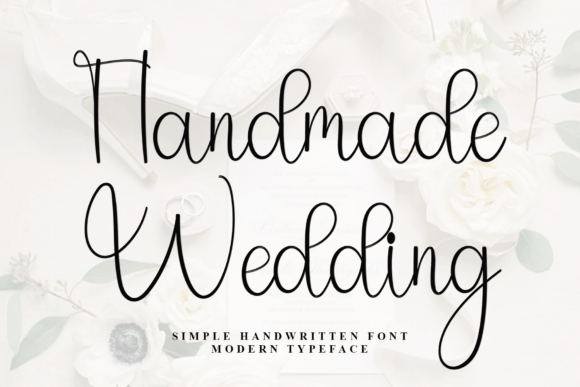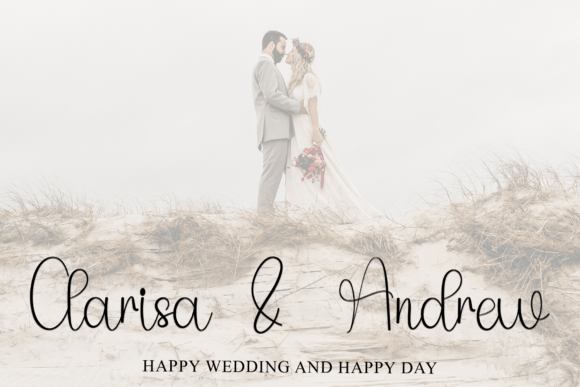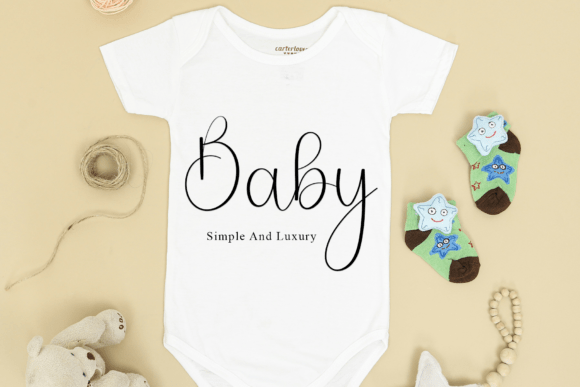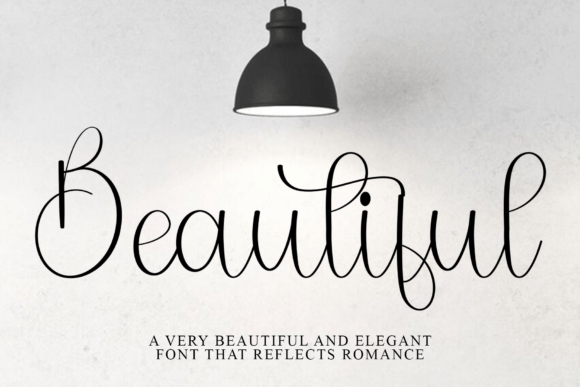
Handmade Wedding Font
About the Handmade Wedding Font
Crafted with precision, the Handmade Wedding Font is ready to bring your ideas to life. This elegant script font is designed with graceful swashes and fluid strokes that bring a touch of sophistication to every word. Perfect for wedding invitations, branding, logos, and social media posts, it blends modern calligraphy with classic charm. The stylish swashes add a romantic and artistic flair, making your text feel personal and luxurious.
Its elegant, yet slightly informal, personality makes it ideal for wedding stationery, branding projects focused on luxury goods or artisan crafts, and short-form content across social media platforms. Avoid using it for large bodies of text or UI elements; the intricate swashes can become illegible at smaller sizes and hinder readability.
For optimal pairings, consider a clean sans-serif like Montserrat for body text to provide a strong contrast and enhance readability. Alternatively, a classic serif font such as Garamond can create a more traditional, timeless feel, complementing the script’s romantic nature. For a bolder statement, a geometric sans-serif like Futura could add modern edge.
The font’s overall mood is sophisticated yet approachable—romantic without being overly fussy. It projects an air of handmade quality and authenticity, making it perfect for brands emphasizing craftsmanship and personalized experiences.
Handmade Wedding Font Usage Examples
Handmade Wedding Font Example